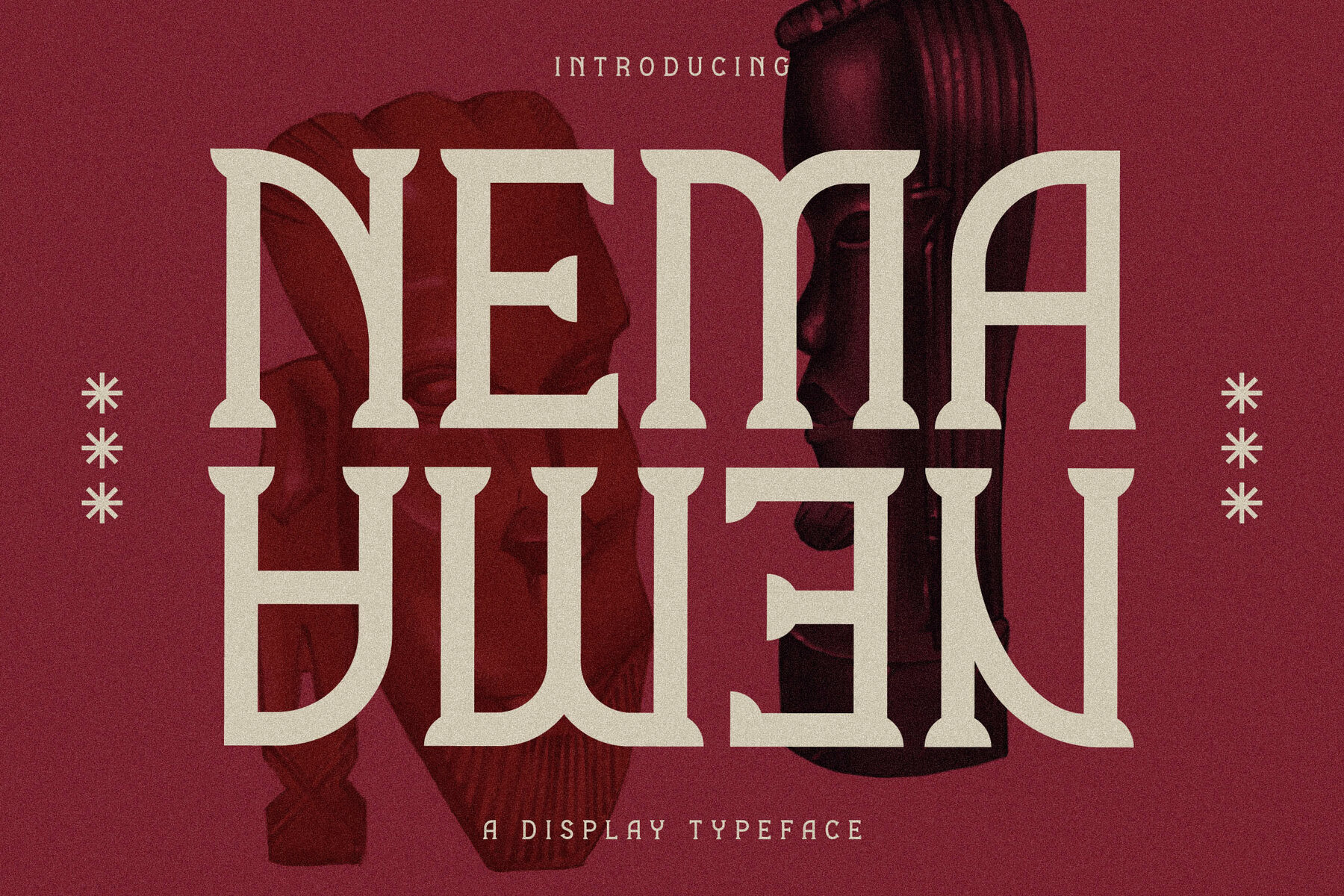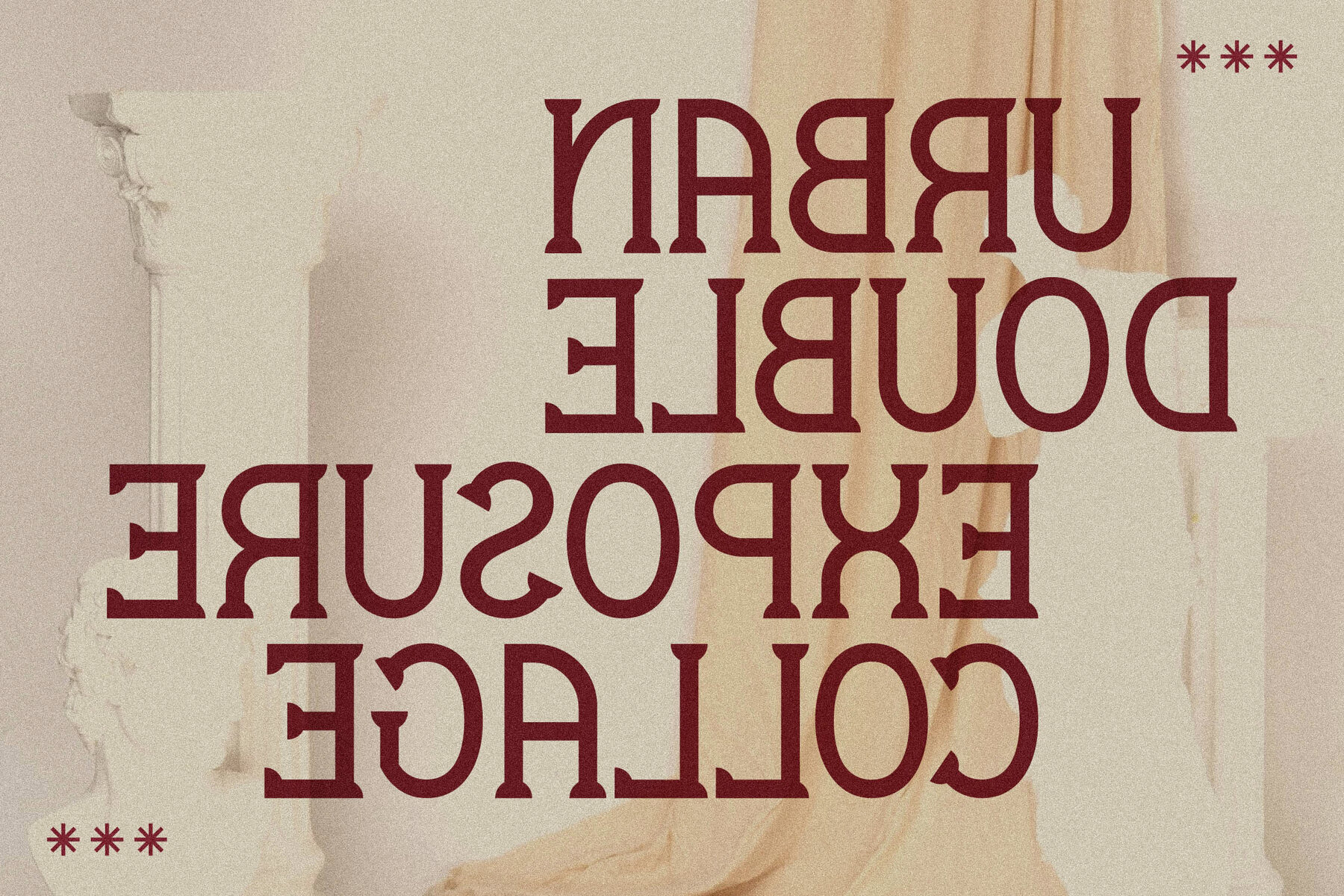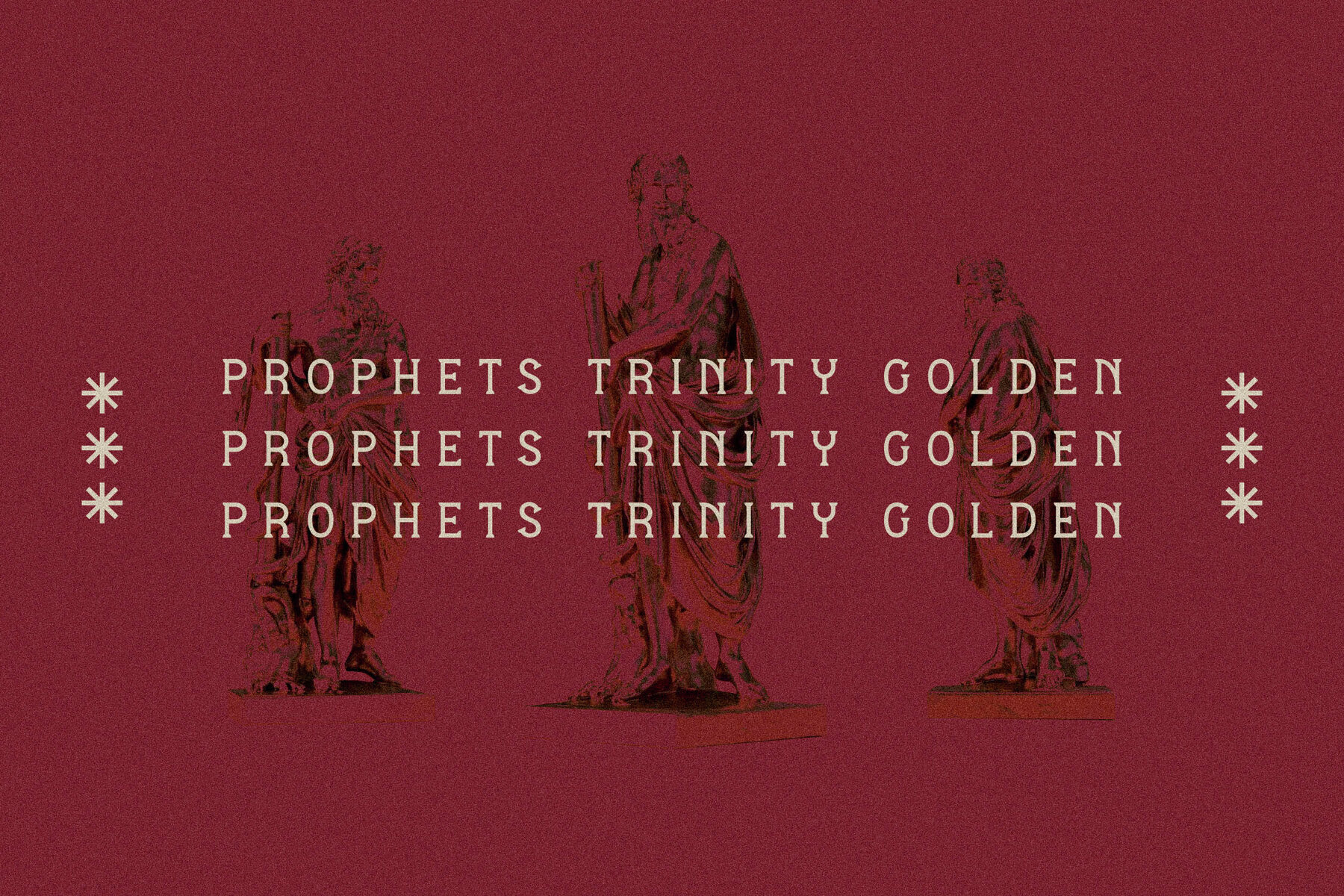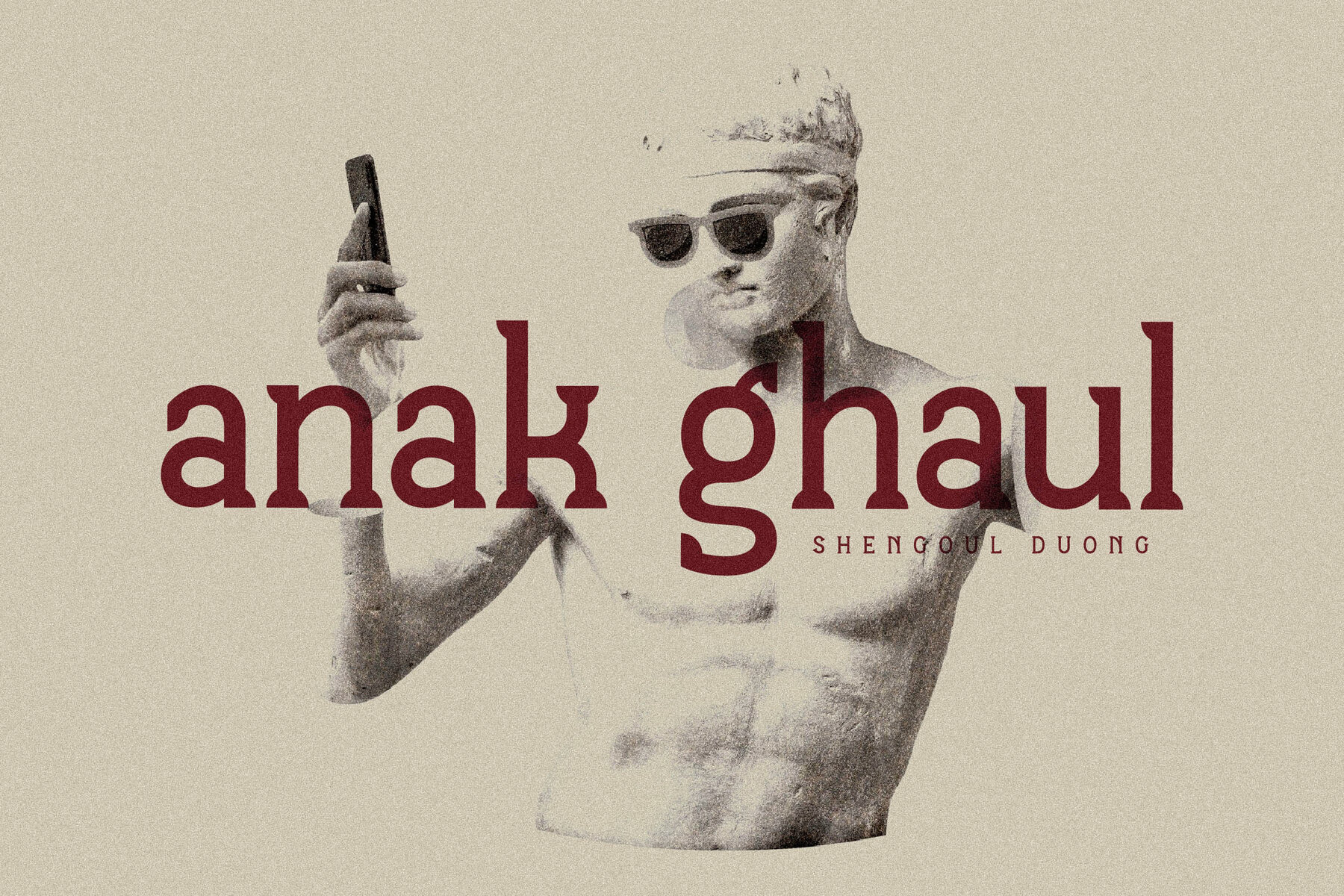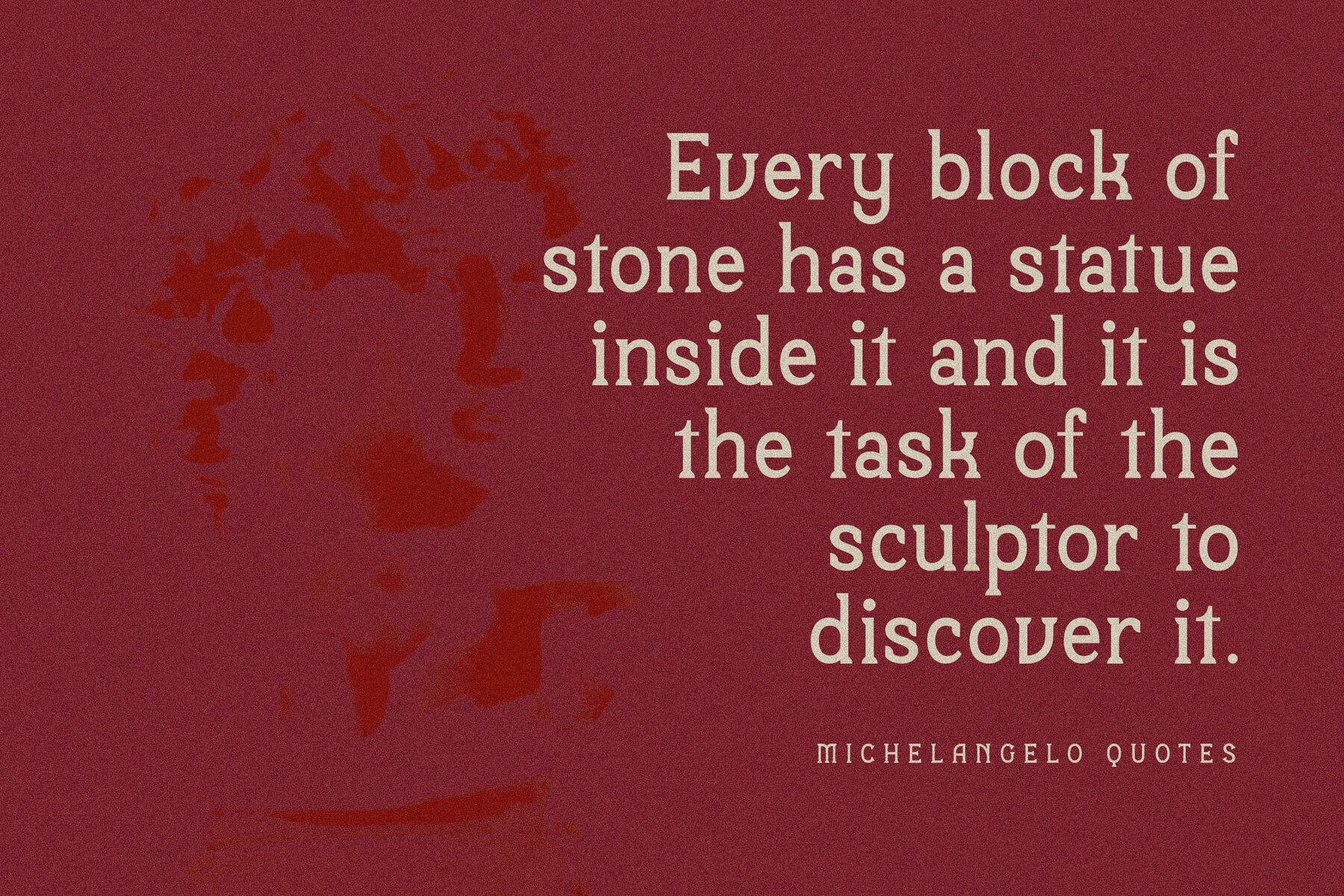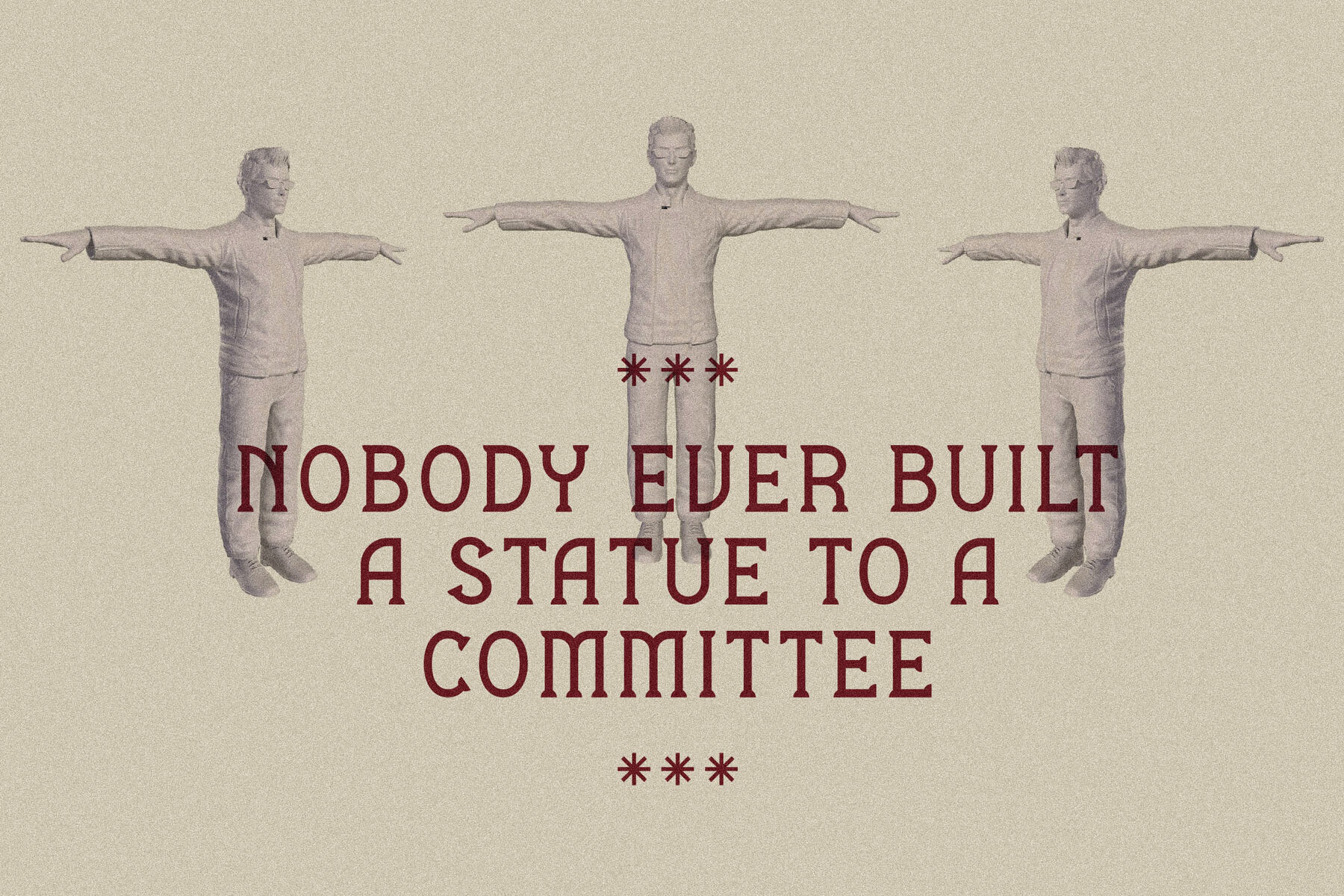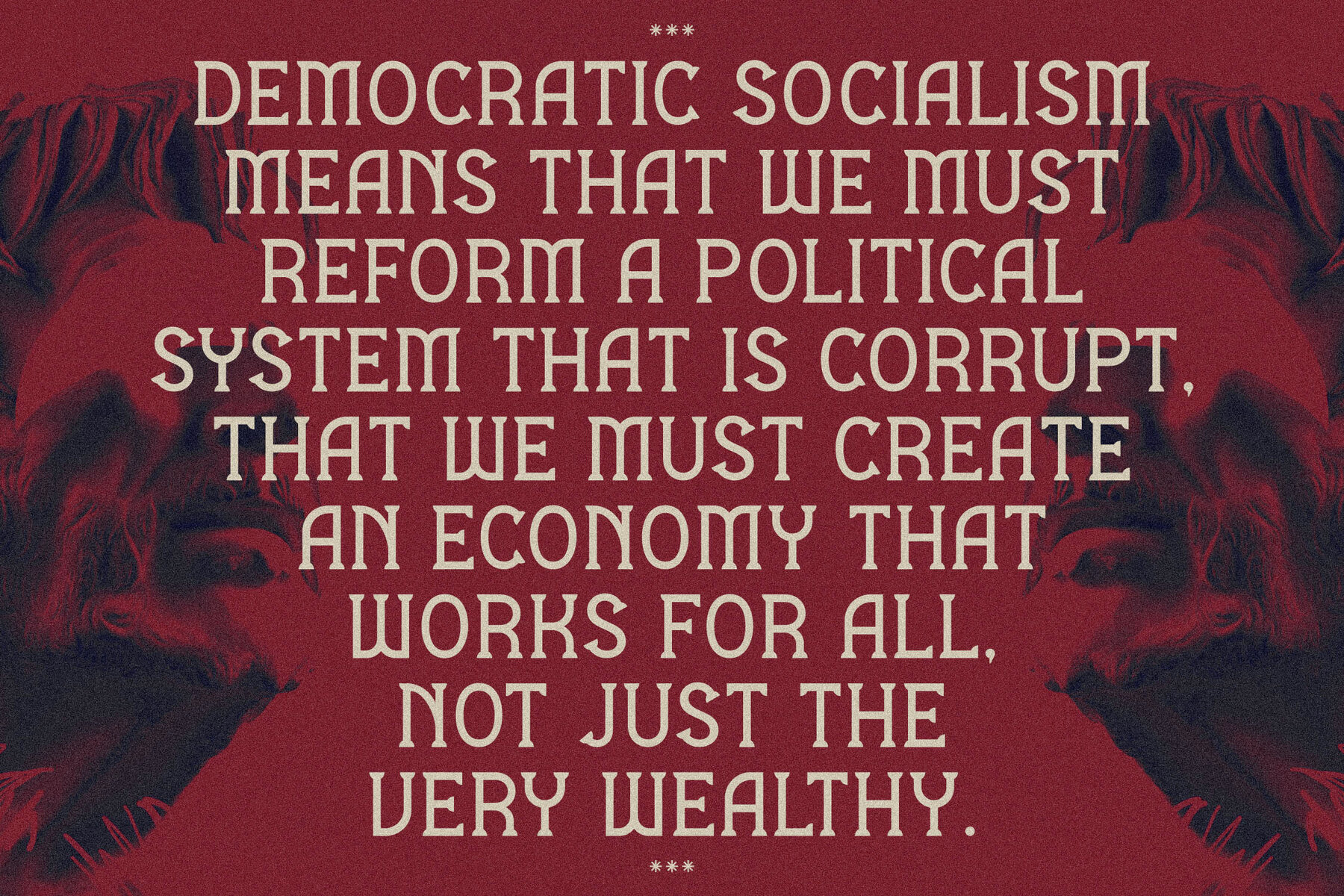
NEMA Font
NEMA is a serif typeface conceived by Storytype Studio, artfully blending modern and classic aesthetics. Its distinct style makes it an exceptional choice for crafting elegant and luxurious logos, book or movie titles, or enhancing the identity of fashion brands and magazines. From sophisticated clothing lines to inspirational quotes, NEMA meets a wide range of design needs with style and grace.NEMA Typeface: Elevate Your Design with Timeless Elegance